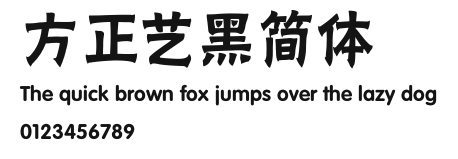
方正艺黑简体 Preview
• Font Name: 方正艺黑简体
方正艺黑简体.ttf is a modern, elegant sans-serif font designed for ultimate readability and visual harmony. Perfect for branding, headlines, web design, and print materials.